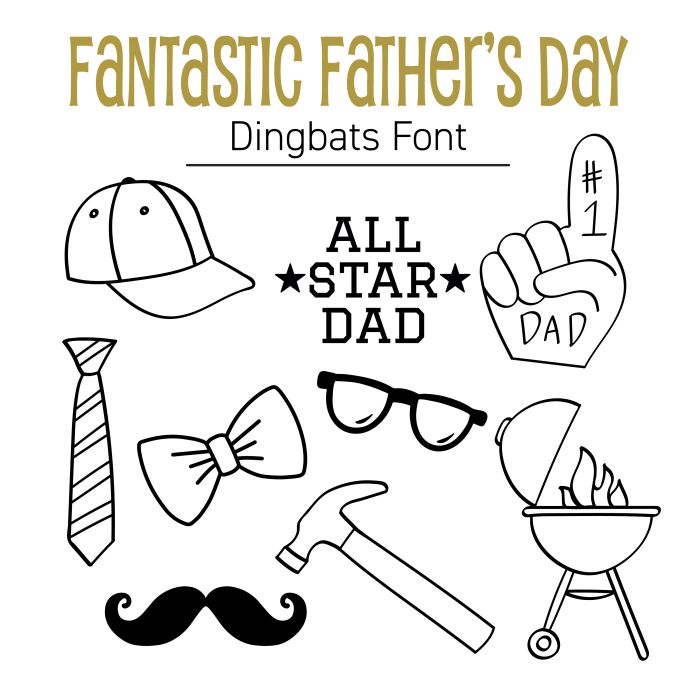
Celebrate the dads in your life with this playful and heartfelt Father’s Day Dingbat Font, made just for Silhouette Studio and your favorite cutting machines! This font is packed with fun, dad-themed icons—think mustaches, ties, tools, hats, BBQ gear, and more—all in an easy-to-use dingbat format. Just type a letter and a unique Father's Day design appears, ready to cut, print, or customize for your next creative project.